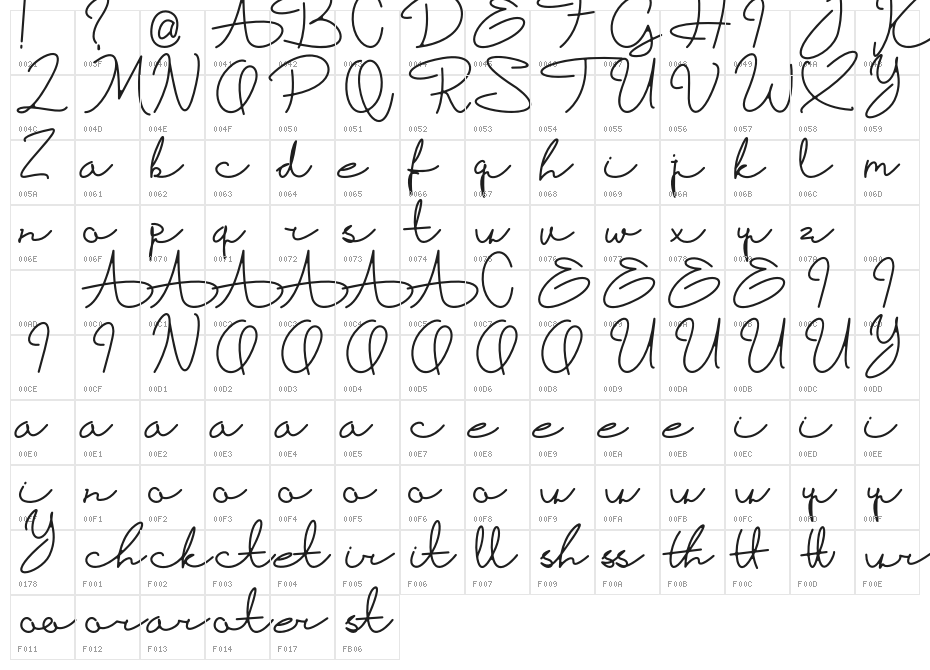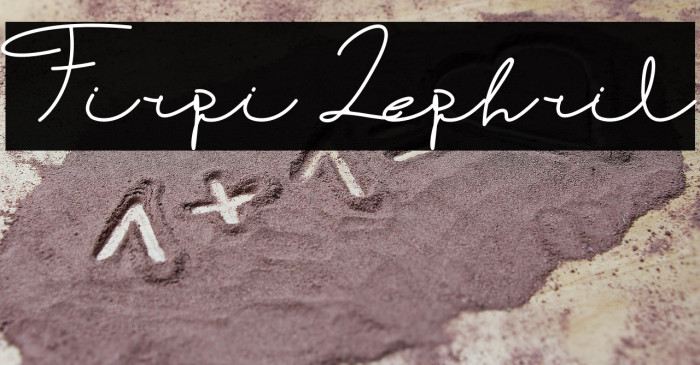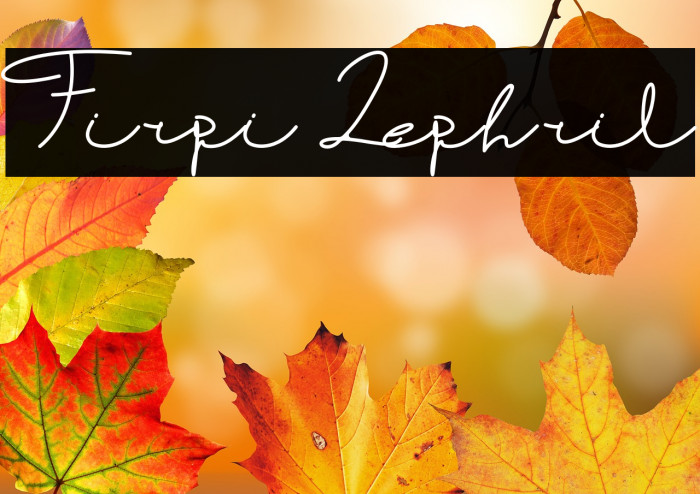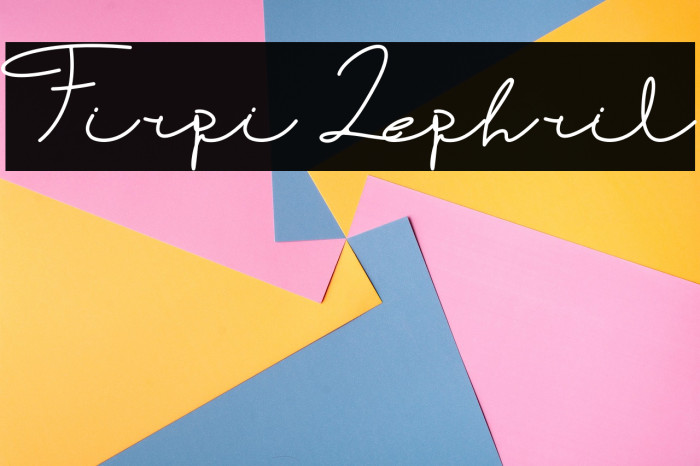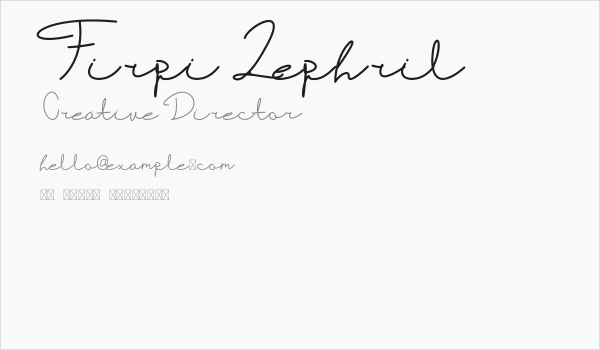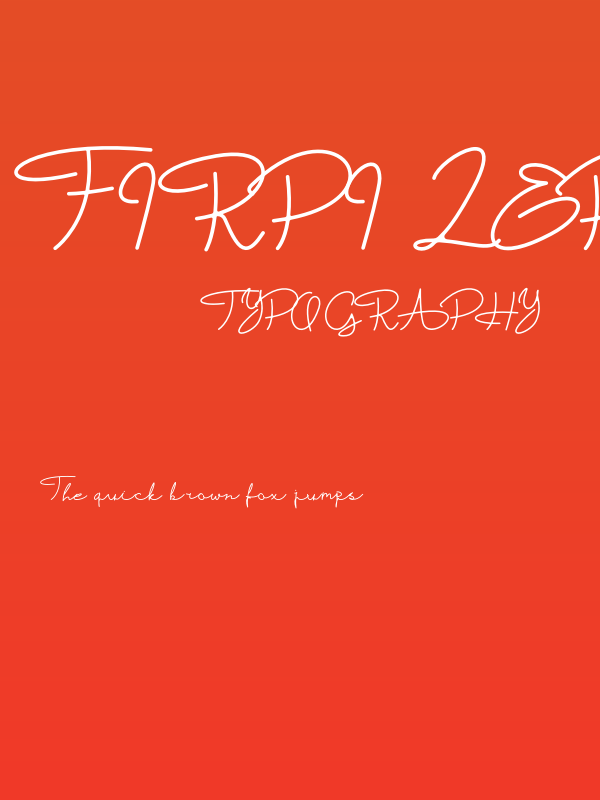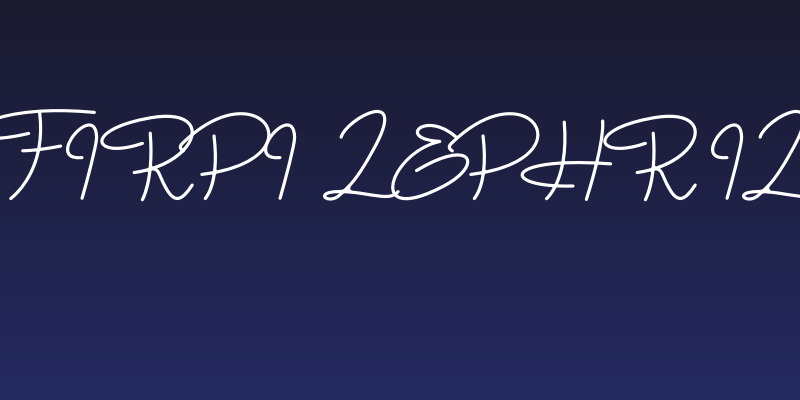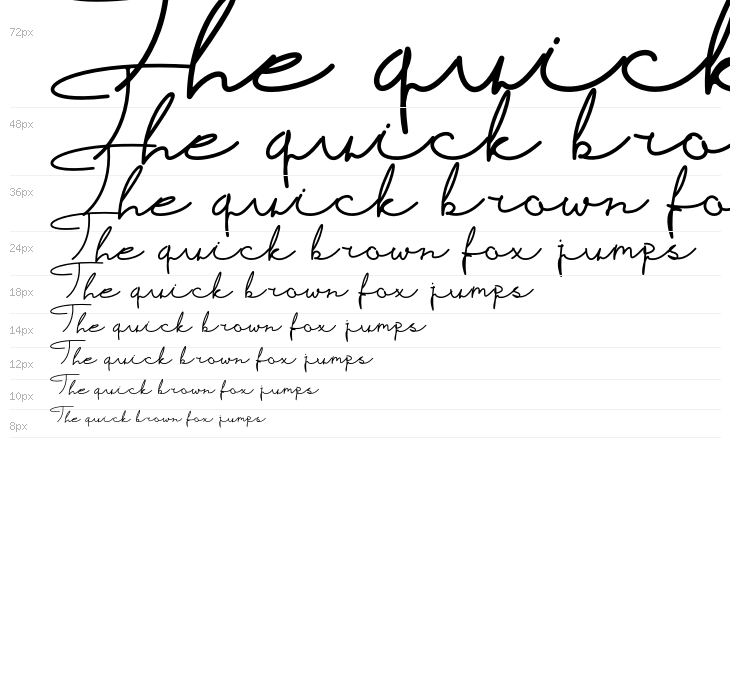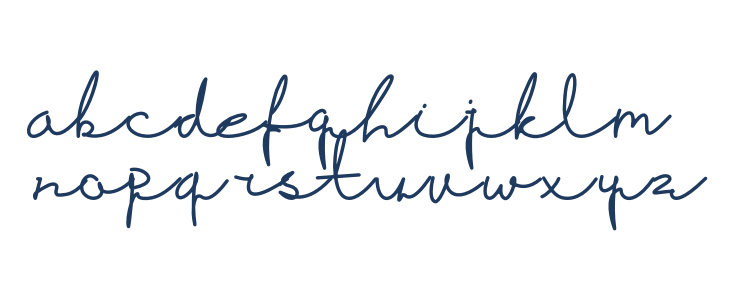
Firpi Lephril Font
Firpi Lephril Description
This font features a flowing, cursive style that exudes elegance and sophistication. The uppercase letters are characterized by their sweeping curves and loops, giving them a sense of fluidity and movement. The lowercase letters maintain a consistent style, with smooth connections between each character, enhancing the script's overall cohesiveness. The font's design is reminiscent of traditional handwriting, yet it maintains a modern touch with its clean lines and balanced proportions. The absence of special characters and numerals suggests a focus on textual applications where letters are the primary focus.
| Use Case | Headlines, Invitations, Personal Branding |
| Proposed Projects | Ideal for wedding invitations, greeting cards, and personal branding projects. |